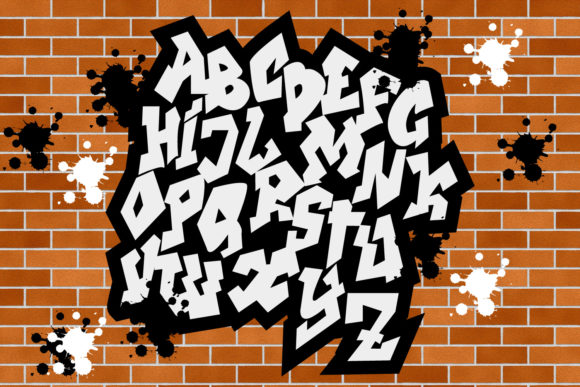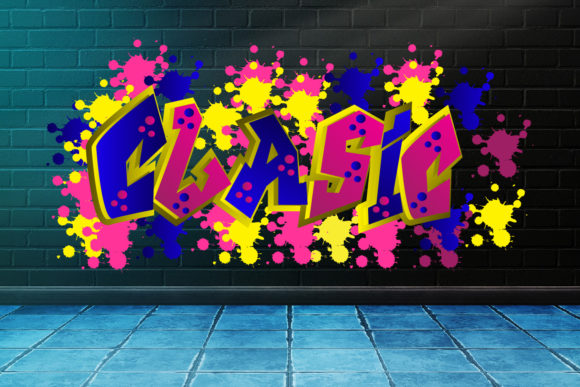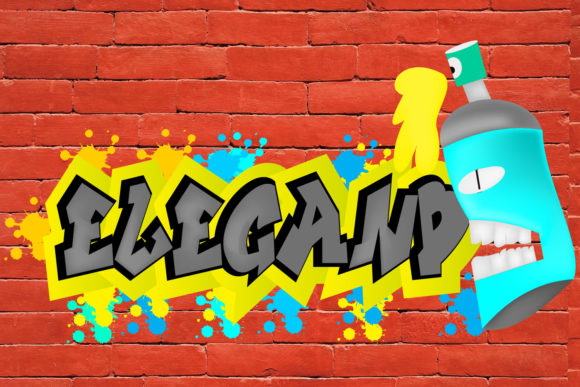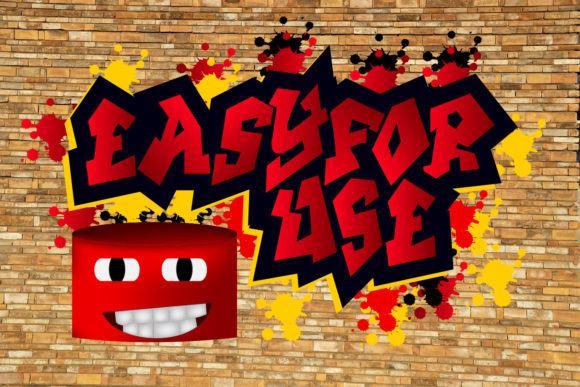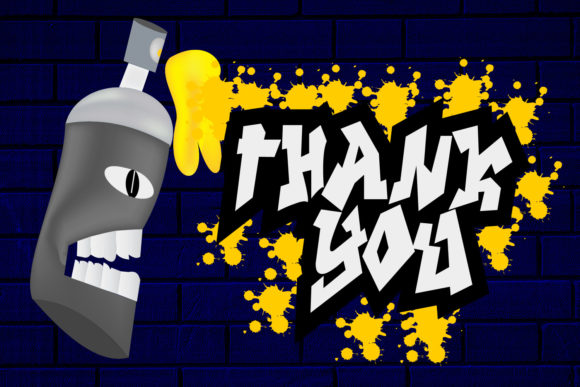
Introduction to Noda Hitam Font Font
Fonts play a crucial role in design, and the Noda Hitam Font font is a typeface that brings both character and versatility to any project. Whether you’re working on a branding project, a website, or a print design, the Noda Hitam Font font offers a unique style that can elevate your work.
Noda Hitam is a unique graffiti style display font.
Add it to your most creative ideas and notice how it makes them come alive .
Key Features of Noda Hitam Font Font
Why Choose Noda Hitam Font Font?
The Noda Hitam Font font is more than just a typeface – it’s a design tool that helps you communicate your message with style and clarity. Its unique character set and versatile design make it suitable for a wide range of applications, from elegant invitations to bold headlines.
With its carefully crafted letterforms and balanced proportions, the Noda Hitam Font font ensures readability and visual appeal across all mediums.
What makes Noda Hitam Font font special?
The Noda Hitam Font font stands out with its unique design, exceptional readability, and versatility across various design applications.